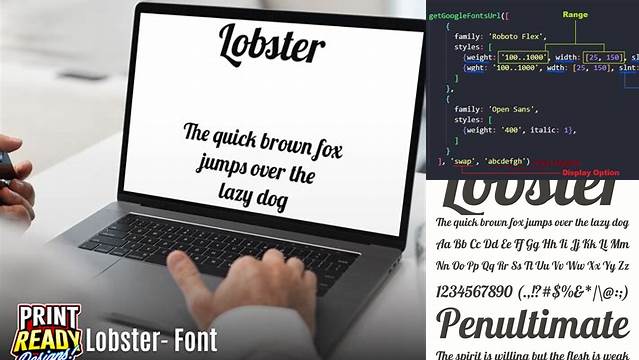
Lobster Font: Google Fonts CSS2 & Display Swap Guide
Why Use Lobster Font?
Lobster is a beautiful cursive font that adds a touch of elegance and personality to any design. It’s perfect for headlines, logos, and other display elements where you want to make a statement. Think vintage vibes and a friendly, approachable feel. The Lobster font is a real gem when it comes to adding character to your website. Its flowing script and unique letterforms make it a standout choice for headings, banners, and any design element that needs a touch of flair. Lobster's distinct style is both eye-catching and readable, making it a versatile option for various projects. Whether you're designing a retro-themed website or simply looking to inject some personality into your brand, Lobster is a font that delivers on its promise of style and sophistication.
2. Select the Styles
Google Fonts allows you to choose different styles of a font, such as regular, bold, and italic. For Lobster, you'll typically just have the regular style. Select the style you want to use by clicking the “+” button next to it. Selecting the appropriate styles is crucial for maintaining consistency and readability across your website. Google Fonts offers a variety of styles for many fonts, allowing you to tailor your typography to your specific needs. For Lobster, the regular style is often the most versatile, but it's always a good idea to consider how different styles might enhance your overall design. By carefully choosing the styles you need, you ensure that your website's text is both visually appealing and easy to read, contributing to a positive user experience.
3. Embed the Font in Your HTML
Google Fonts will provide you with a code snippet to embed the font in your HTML. You'll want to use the <link>
tag method for optimal performance. Make sure to include &display=swap
in the URL. Embedding the font in your HTML is a critical step in making it available for use on your website. Google Fonts simplifies this process by providing a ready-made code snippet that you can easily copy and paste into your HTML file. Using the <link>
tag method ensures that the font is loaded efficiently, contributing to faster page loading times. By including &display=swap
in the URL, you're instructing the browser to display text using a fallback font while the Lobster font is loading, preventing the flash of invisible text (FOIT) issue. This ensures a smoother user experience and demonstrates your attention to detail.
into your font loading strategy, you can ensure that your website is both visually appealing and highly performant.